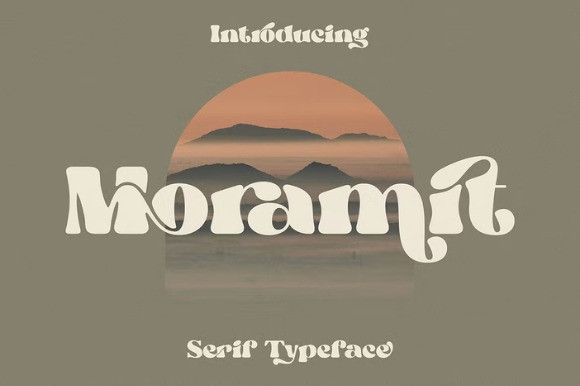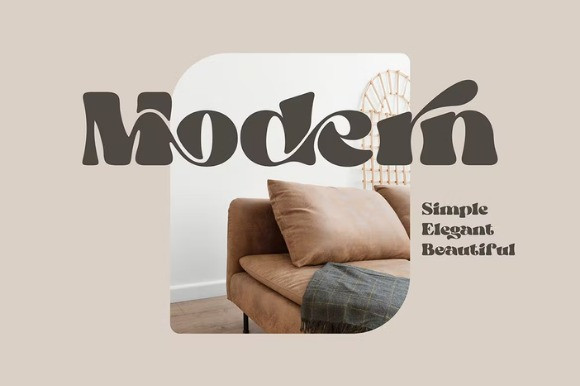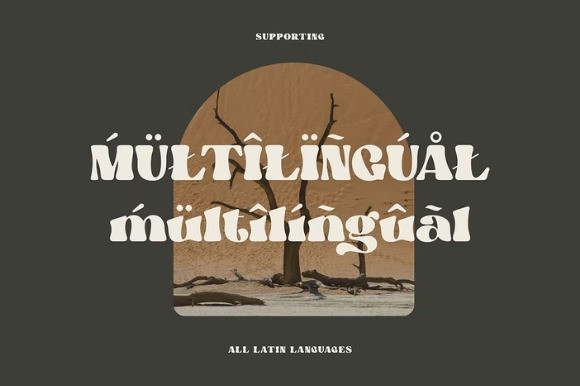
Moramit Font
Moramit is a trendy, thick lettered and original serif font. Add it confidently to your creations and you will love the results! This font is PUA encoded which means you can access all of the glyphs and swashes with ease!